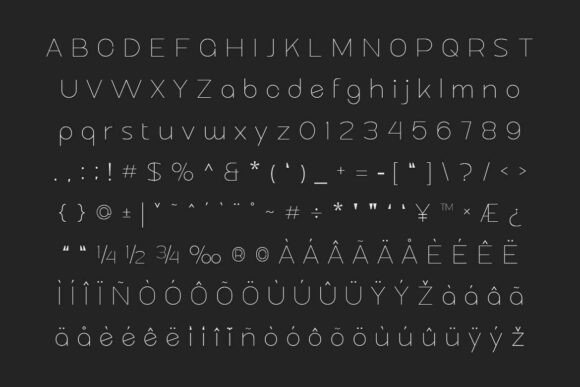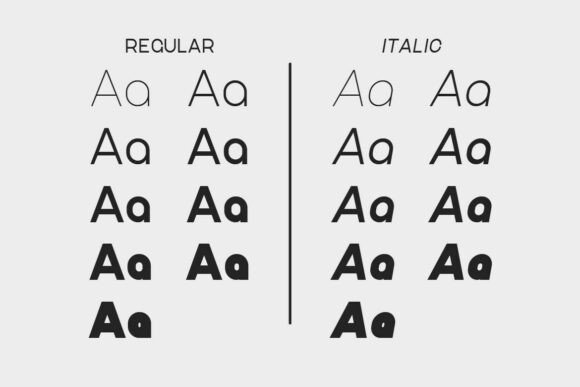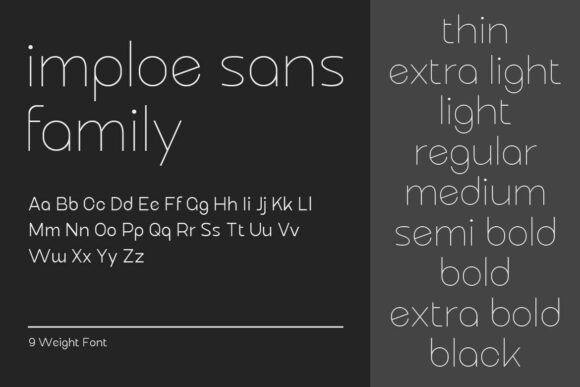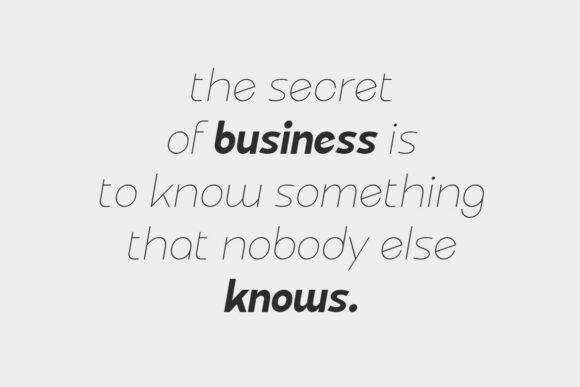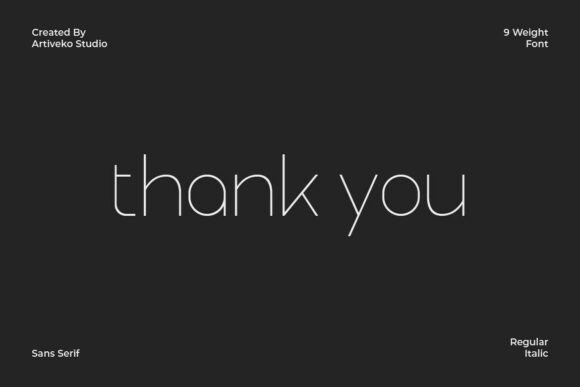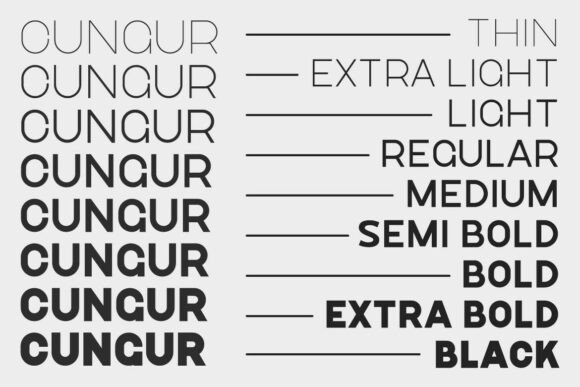
The Perfect Canvas for Your Creativity: Introducing the Imploe Font
Have you ever stared at a blank page, waiting for the perfect font to bring your design to life? That’s a familiar feeling for many of us. As designers, we’re always on the lookout for the ideal typography to convey our message, evoke emotions, and leave a lasting impression. That’s where the Imploe Font comes in – a clean, contemporary sans serif font family designed to adapt to any creative project.
The Imploe Font is more than just a font; it’s a versatile tool that can elevate your branding, editorial layouts, web design, corporate identity, packaging, and social media graphics. Its balanced proportions, smooth curves, and geometric precision make it a valuable asset for designers who demand flexibility and professional appeal. With the Imploe Font, you can unleash your creativity and bring your ideas to life with confidence.
Imploe Font Key Features
- Font Family: Imploe Font comes in multiple font styles, including Regular, Bold, Italic, and Bold Italic.
- Unique Characteristic: Imploe Font features a unique blend of modern and minimalist design elements, making it suitable for a wide range of design projects.
Imploe Font Review
Overall, I found the Imploe font to be quite interesting. It has a unique blend of futuristic and minimalist elements that could work well in various design contexts. ✨
The font’s geometric shapes and clean lines give it a modern feel, while its subtle rounded edges add a touch of friendliness. This versatility makes it suitable for a range of applications, from tech and gaming to branding and publishing. ✨
- Unique blend of futuristic and minimalist elements
- Geometric shapes and clean lines give it a modern feel
- Subtle rounded edges add a touch of friendliness
- Suitable for a range of applications
However, I did encounter some limitations with the Imploe font. ⚠️
- May not be as legible at smaller font sizes
- Some characters may appear too similar
- Not as extensive a character set as some other fonts
Overall, I think the Imploe font has potential, but it’s not without its drawbacks. With some careful use and consideration, it could be a great addition to a designer’s toolkit.
For optimal results, use Imploe Font in combination with bold or italic styles to add emphasis.
Experiment with different font sizes to create visual hierarchy in your design.
Use Imploe Font in headings to create a cohesive brand identity.
Imploe Font is ideal for:
Logo design and branding.
Marketing materials, such as brochures and flyers.
Website design and development.
Alternatives to “Imploe Font” for Designers
Montserrat is a sans-serif typeface that originated in Argentina. It’s a versatile font suitable for various design projects, including digital interfaces, magazines, and advertisements. Montserrat is a great alternative to Imploe Font when you need a clean and modern look. Compared to Imploe Font, Montserrat has a more geometric feel and a wider range of weights.
Open Sans is a popular sans-serif font that’s widely used in digital design. It’s highly legible and works well for body text, headings, and titles. Open Sans is a good choice when you need a clean and neutral font that’s easy to read. Compared to Imploe Font, Open Sans has a more rounded feel and a larger character set.
Lato is a modern sans-serif font that’s highly customizable. It’s suitable for various design projects, including digital interfaces, print materials, and web applications. Lato is a great alternative to Imploe Font when you need a font with a strong personality. Compared to Imploe Font, Lato has a more elegant feel and a wider range of weights.
Q: Is Imploe Font available in different font weights and styles?
Yes, Imploe Font is available in various font weights and styles, including light, regular, bold, and italic. This allows for greater flexibility and creativity in your designs.